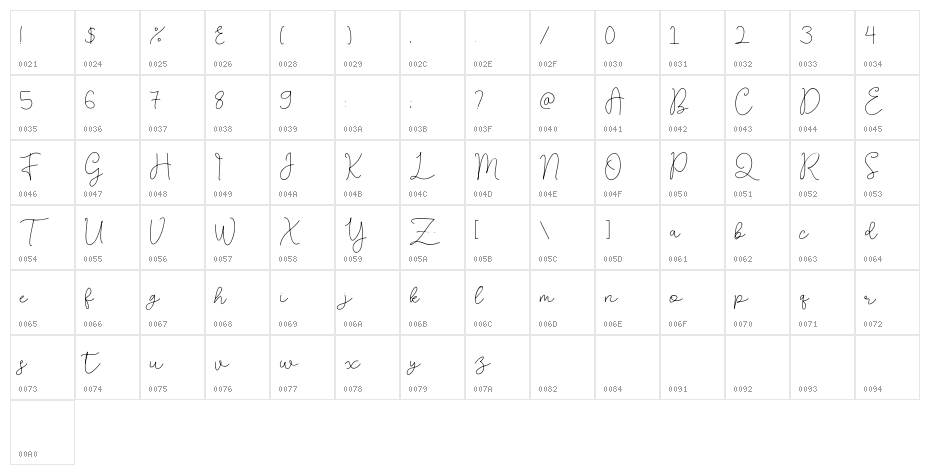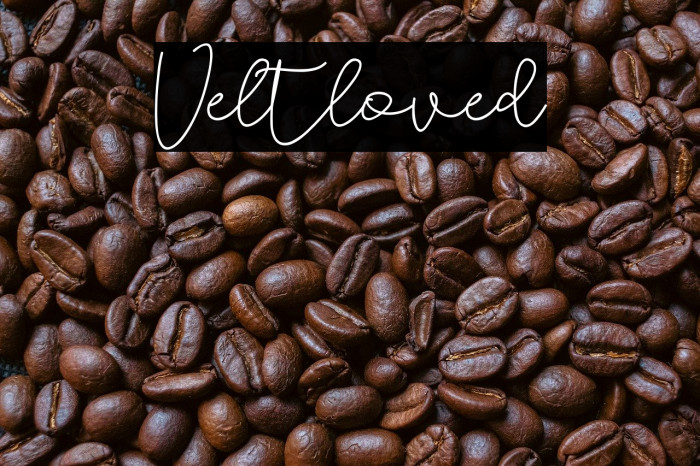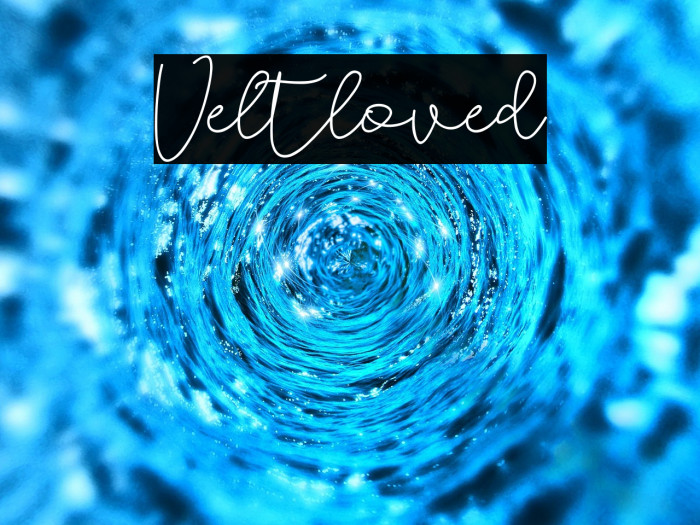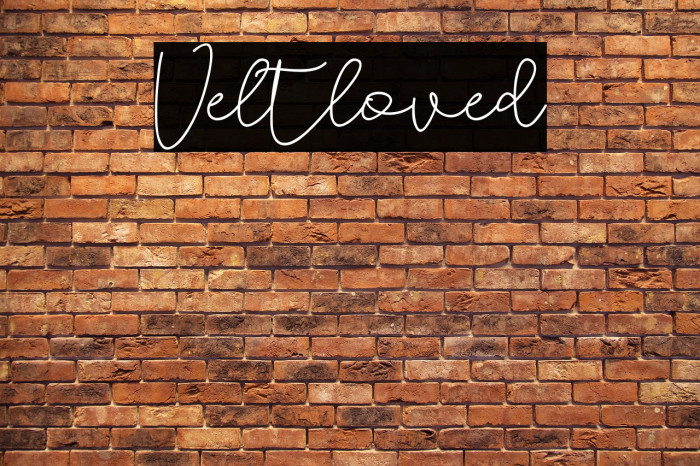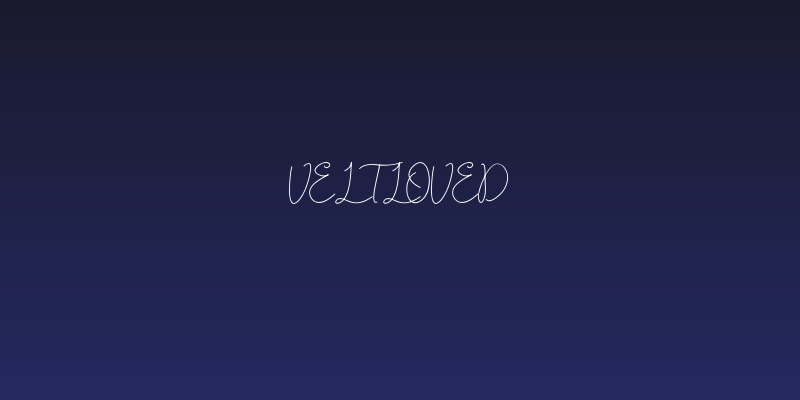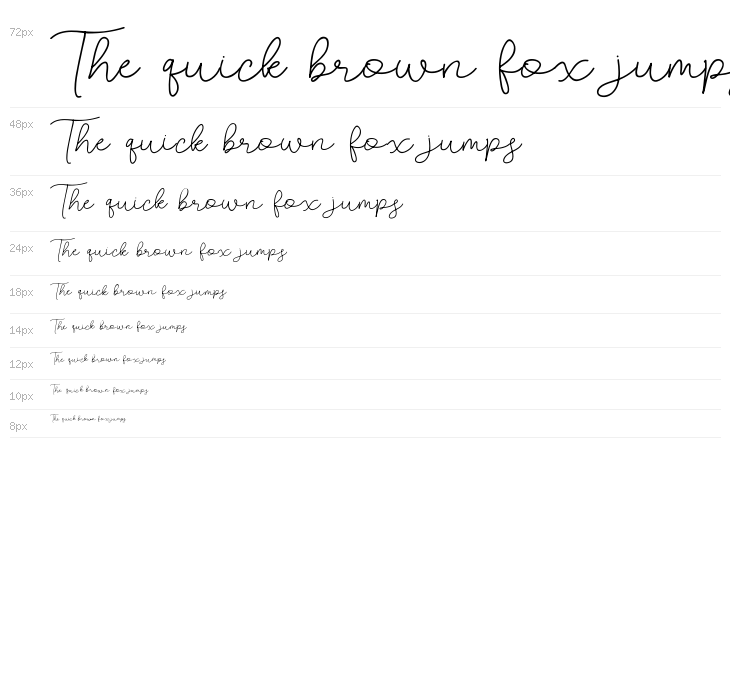
Veltloved Font
Veltloved Description
A delicate, handwritten script font with thin, flowing lines and a casual, whimsical appearance. The characters are loosely connected, featuring playful loops and varying heights, giving it a personal and informal touch.
| Overall Style | Decorative, Casual, Whimsical |
| Use Case | Logos, Invitations, Greeting cards, Social media posts |
| Proposed Projects | Invitations, greeting cards, personal branding, quotes, social media graphics. |